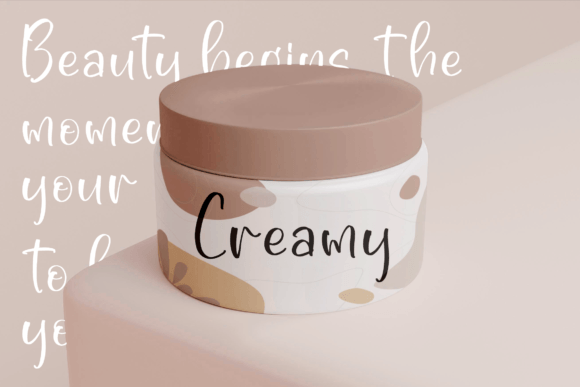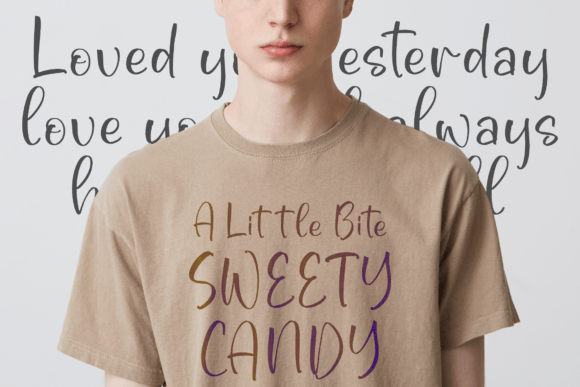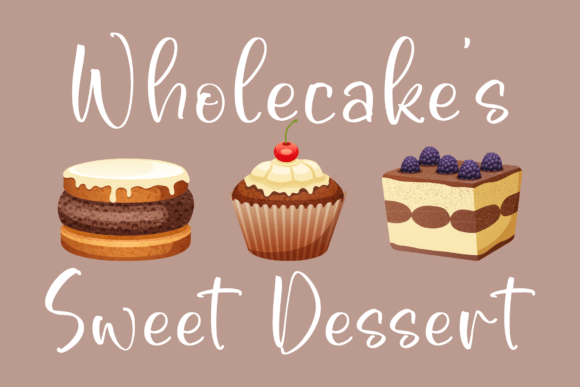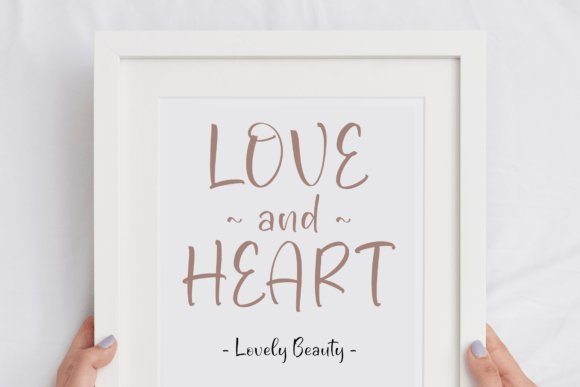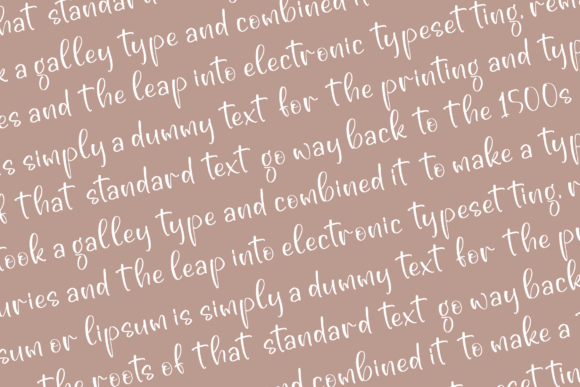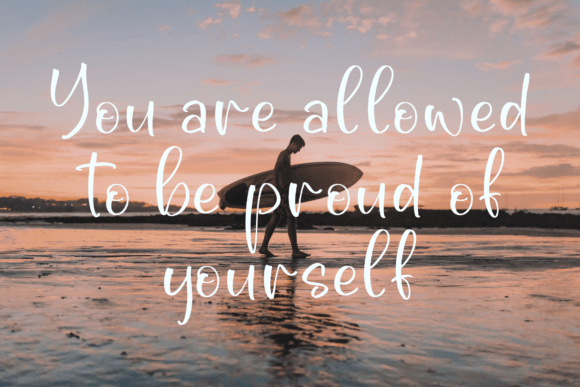
Introducing Daughter Bhalita Font: The Perfect Handwritten Script for Your Creative Projects
Are you a designer or crafter looking for a unique and beautiful handwritten font to elevate your projects? Look no further than the Daughter Bhalita Font! This stunning script font is perfect for a wide range of applications, from logos and branding projects to homeware designs, product packaging, and more.
What is Daughter Bhalita Font?
Daughter Bhalita Font is a cute and charming handwritten font that is sure to add a touch of elegance and sophistication to any project. With its flowing script and delicate lines, this font is perfect for designers and crafters who want to create beautiful and eye-catching designs that stand out from the crowd.
What Can I Use Daughter Bhalita Font For?
The possibilities are endless with Daughter Bhalita Font! This versatile font can be used for a wide range of projects, including:
- Logos and branding projects: Create a unique and memorable logo for your business or brand with Daughter Bhalita Font.
- Homeware designs: Add a touch of elegance to your homeware designs, such as ceramics, textiles, and wallpaper.
- Product packaging: Make your product packaging stand out with a beautiful and eye-catching font.
- Mugs and quotes: Create inspiring and motivational quotes for mugs, posters, and social media.
- Posters and flyers: Create stunning posters and flyers for events, promotions, and advertising.
- Shopping bags and t-shirts: Add a personal touch to your shopping bags and t-shirts with a unique and stylish font.
- Book covers and name cards: Create beautiful book covers and name cards that make a lasting impression.
- Invitation cards and greeting cards: Add a touch of elegance to your invitation cards and greeting cards.
- Labels and photography: Use Daughter Bhalita Font to create beautiful labels and watermarks for your photos.
Why Choose Daughter Bhalita Font?
So why choose Daughter Bhalita Font for your next project? Here are just a few reasons:
- Unique and eye-catching: Daughter Bhalita Font is a one-of-a-kind font that is sure to grab attention and make your designs stand out.
- Versatile: This font can be used for a wide range of projects, from logos and branding to homeware designs and product packaging.
- Elegant and sophisticated: Daughter Bhalita Font has a flowing script and delicate lines that add a touch of elegance and sophistication to any design.
Tips and Tricks for Working with Daughter Bhalita Font
Here are a few tips and tricks to help you get the most out of Daughter Bhalita Font:
- Experiment with different sizes and styles: Try out different font sizes and styles to see what works best for your project.
- Pair with other fonts: Combine Daughter Bhalita Font with other fonts to create a unique and eye-catching design.
- Use for headlines and titles: This font is perfect for headlines and titles, where you want to make a bold statement.
- Add a personal touch: Use Daughter Bhalita Font to add a personal touch to your designs, such as a handwritten note or signature.
In conclusion, Daughter Bhalita Font is a beautiful and versatile handwritten script font that is perfect for designers and crafters who want to add a touch of elegance and sophistication to their projects. With its flowing script and delicate lines, this font is sure to make your designs stand out from the crowd. So why wait? Download Daughter Bhalita Font today and start creating stunning designs that inspire and delight!